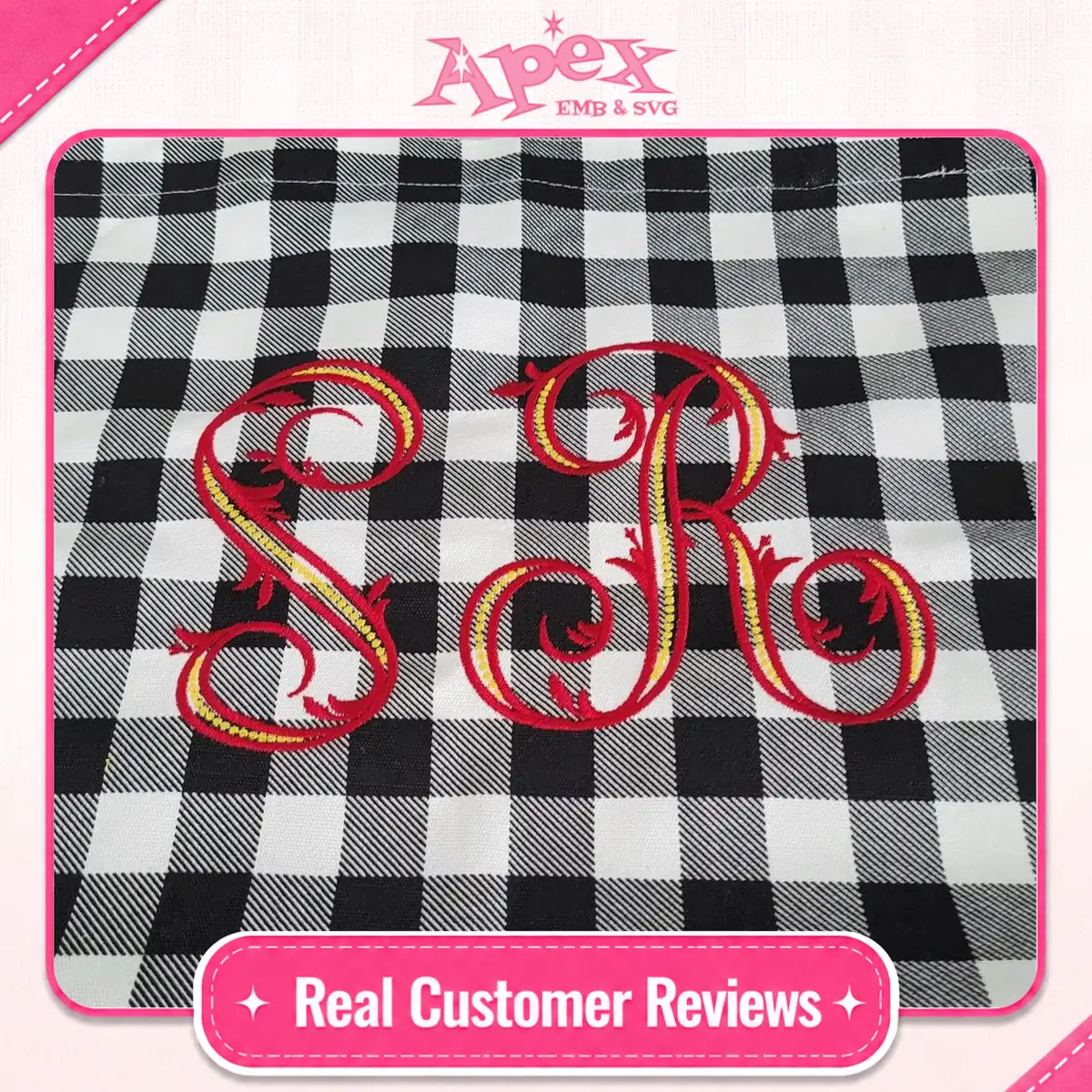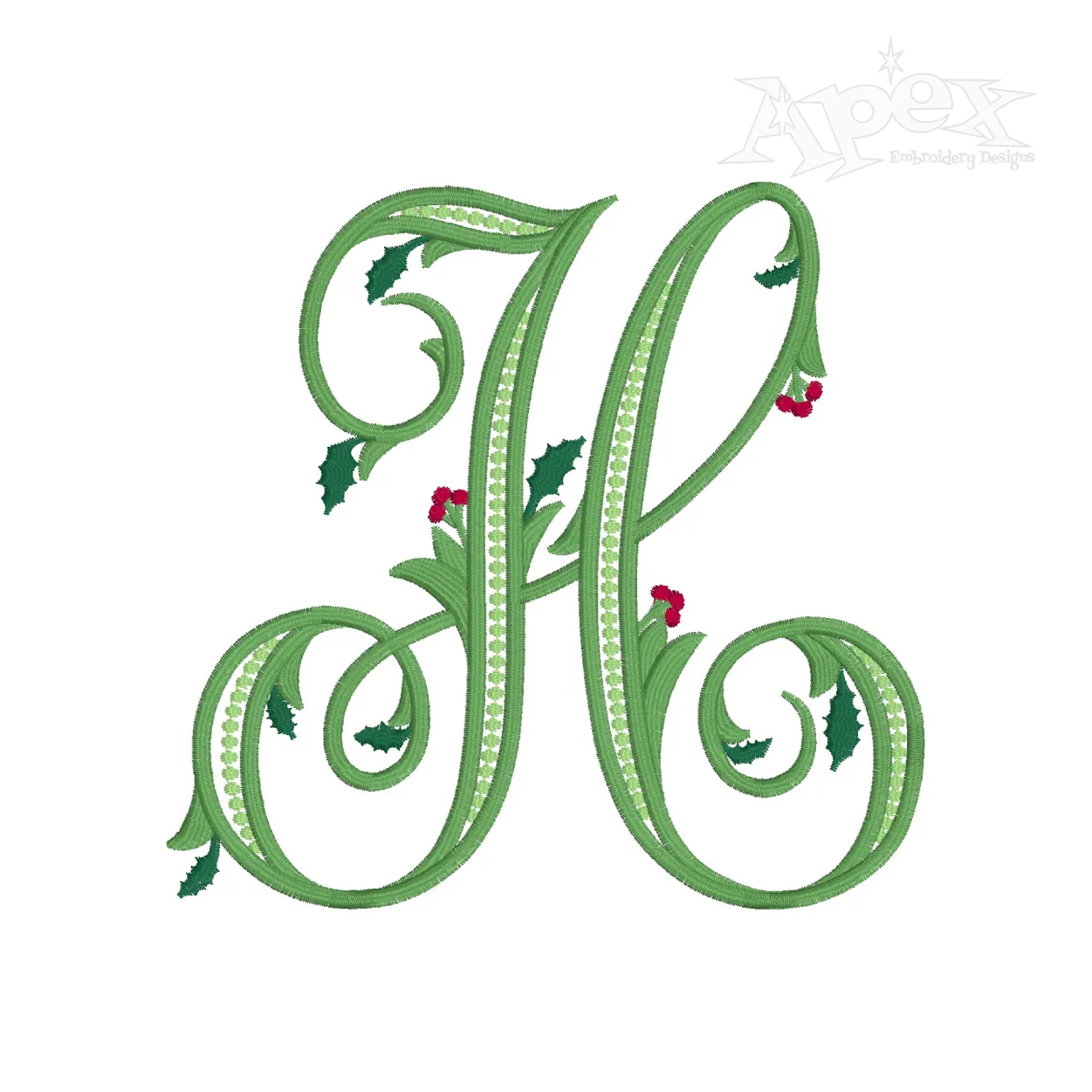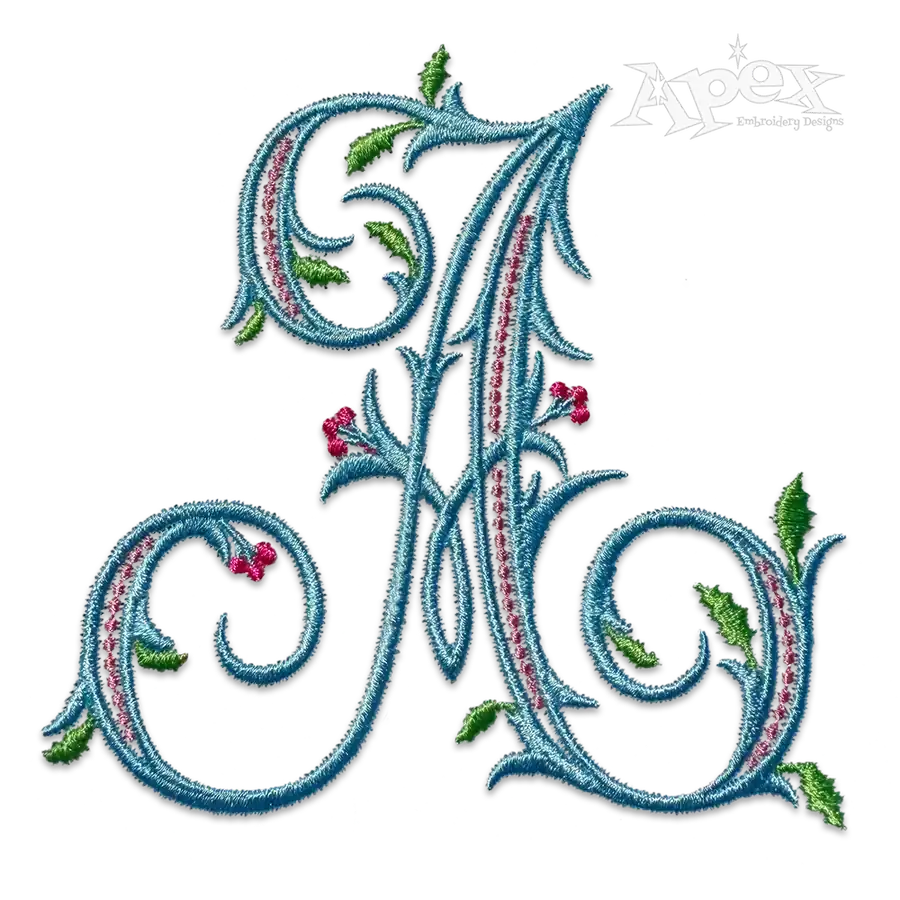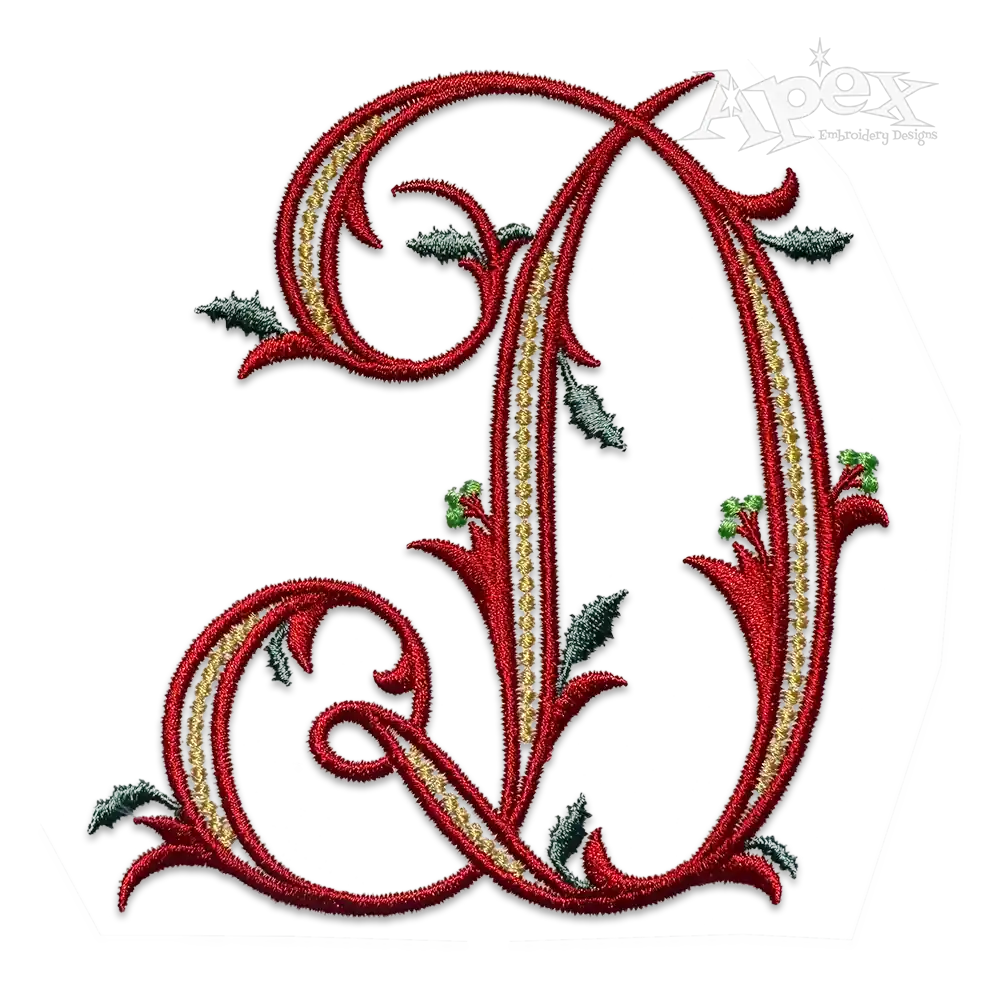
Holly Berries Dottie Script Embroidery Font
Crisp winter twilight inspired Holly Berries Dottie Script. Vision demanded dramatic holiday elegance balance intricate botanical ornament. Hand-digitized strokes transform classic capital initials into storied showpieces. Broad satin contours frame stippled dotted centers, while slender holly vines, thorny leaves, clustered winter berries coil around letter stems. Needle pathways weave seamlessly across linen, velvet, heavy cotton, generating luminous festive warmth with pure heirloom embroidery appeal.
Project Ideas for Holly Berries Dottie Script
- Heirloom Holiday Stockings: Stitch grand single-letter monograms across velvet, wool, or quilted linen cuffs.
- Luxury Table Linens: Anchor corners of festive dinner napkins, placemats, formal table runners with custom monogramming.
- Bespoke Accent Pillows: Showcase prominent initials on rich tweed or velvet throw cushions for seasonal living spaces.
- Personalized Gift Sacks: Transform heavy canvas gift bags into reusable personalized holiday keepsakes.
- Statement Tree Skirts: Embroider family monograms across scalloped tree skirt panels.
- Corner Diagonal: Angle monograms 45 degrees across lower-right corner of table linens or napkins for balanced fold display.
- Center Field: Position tall letterforms dead center on decorative pillows, mantle hangings, tote panels.
- Cuff Horizon: Center initials horizontally across stocking cuffs, ensuring holly flourishes stay clear of seam allowances.
Holly Berries Dottie Script Craft & Letterform Details
Digitizing botanical typography requires delicate balance between density, movement, tactile relief. Holly Berries Dottie Script pairs sweeping outer satin rails with delicate open dotted fills. Open center mesh reduces stitch strain while maintaining bold silhouette across broad hoopings. Tendrils wrap through letterforms with deliberate underlay mapping. Each holly leaf contains crisp directional satin stitches, mimicking natural winter foliage. Raised berry clusters catch ambient light, adding dimensional richness. Controlled push-pull compensation keeps circular dots round, stems aligned, perimeter outlines sharp during high-speed runs.